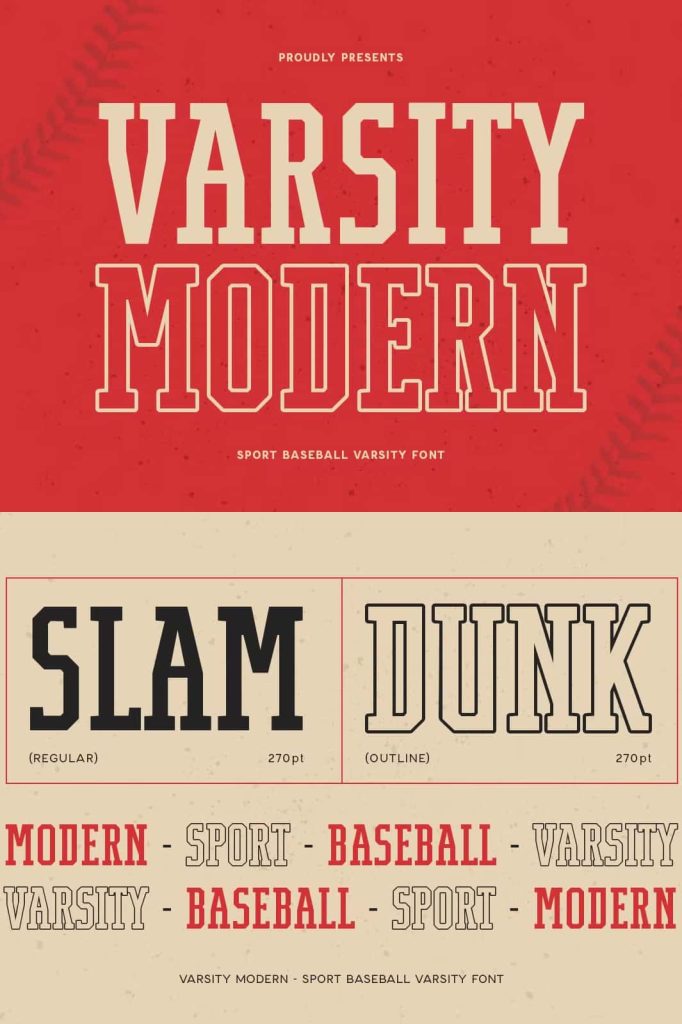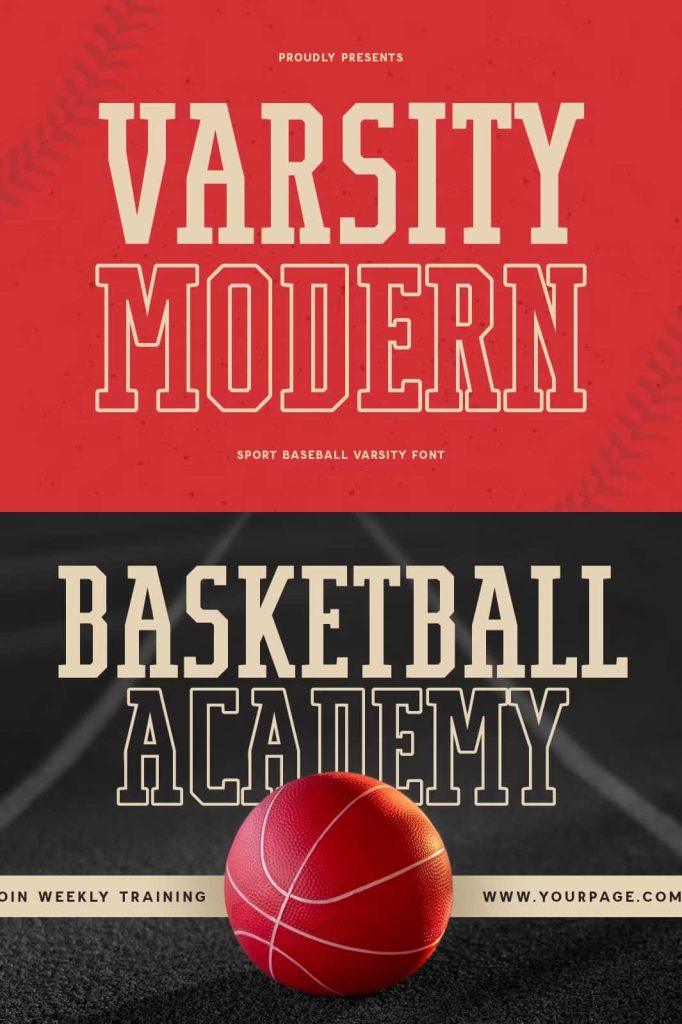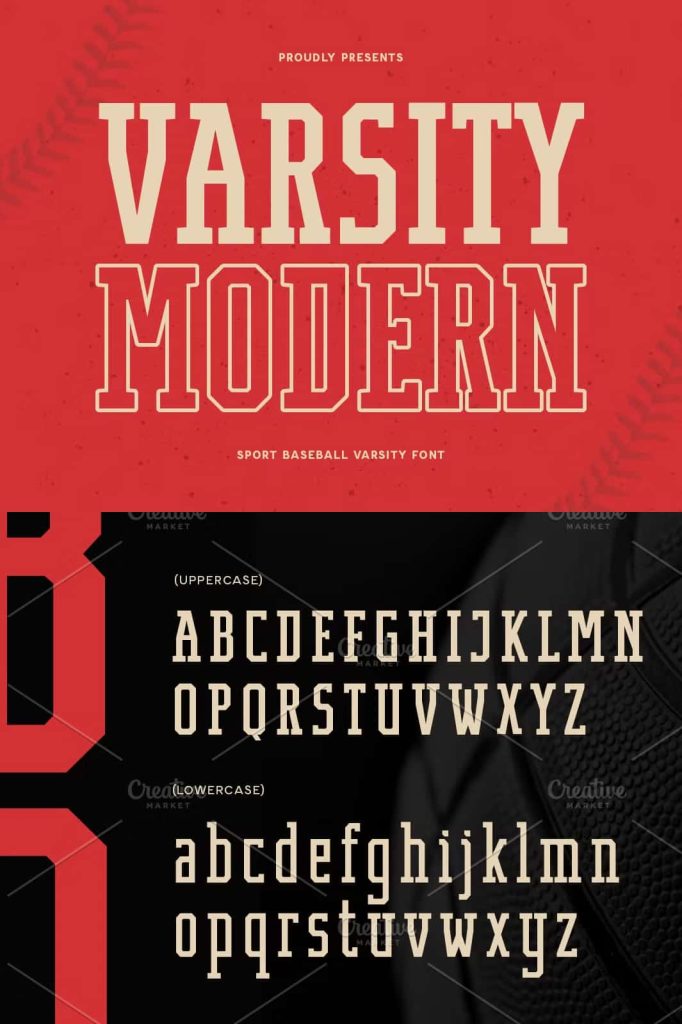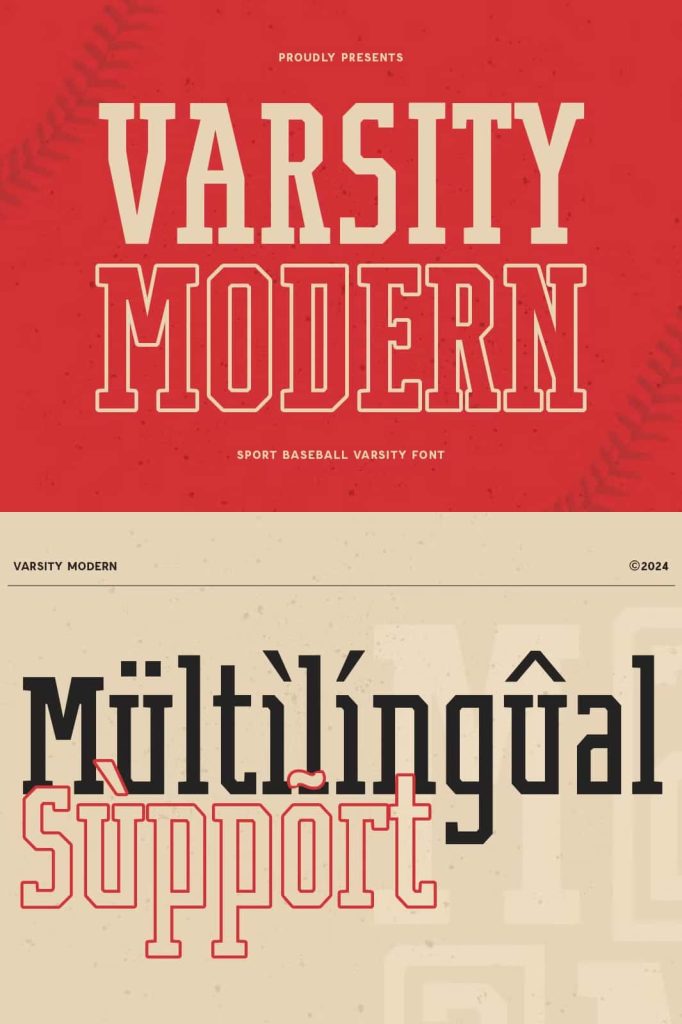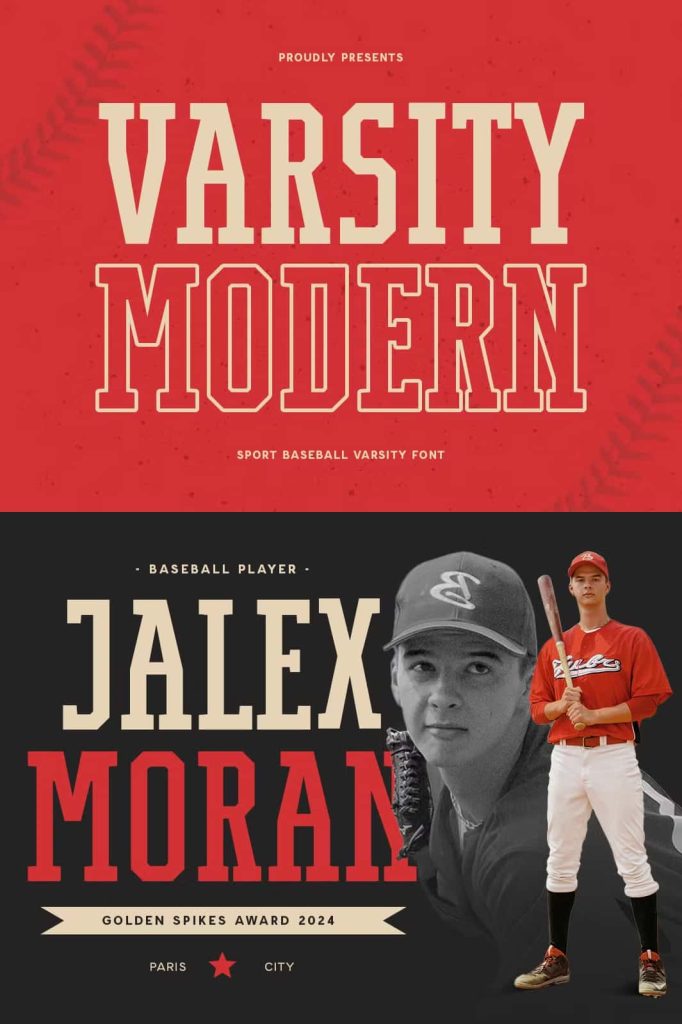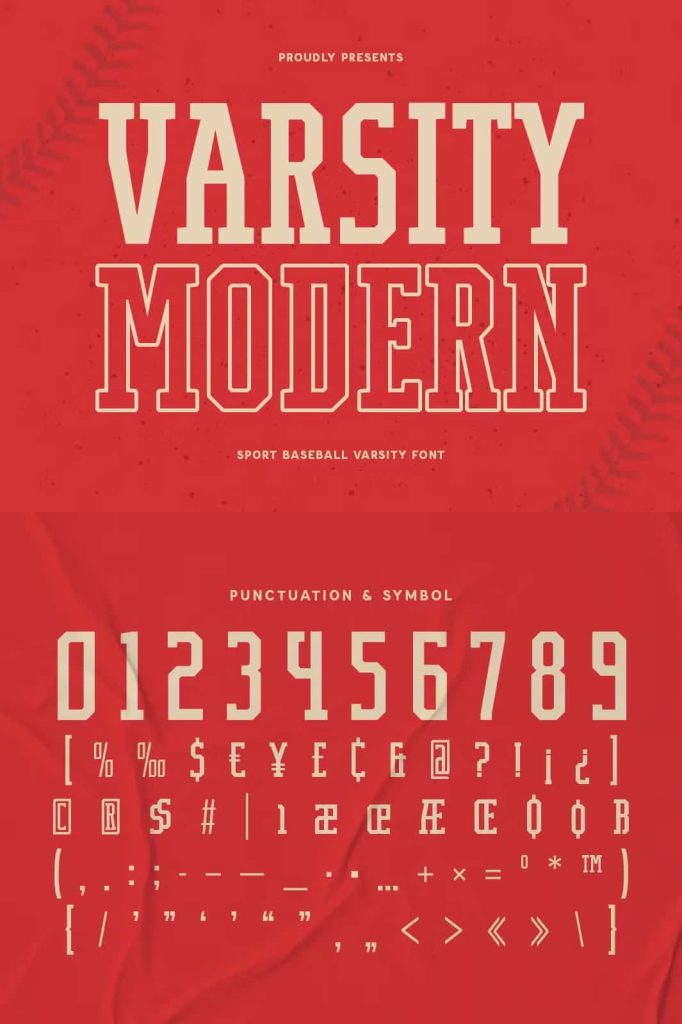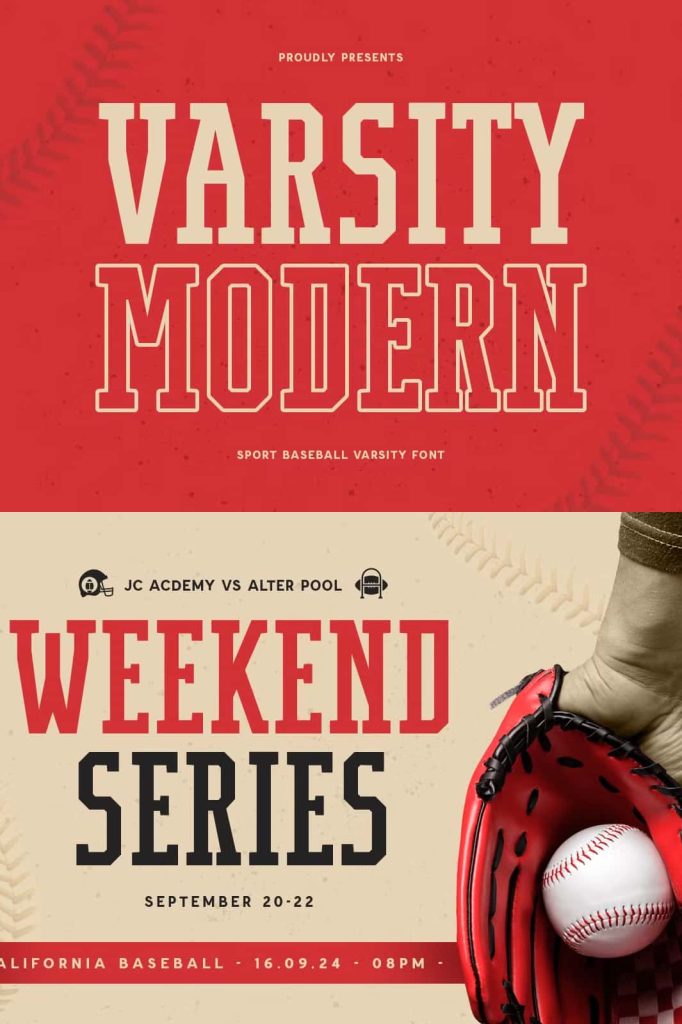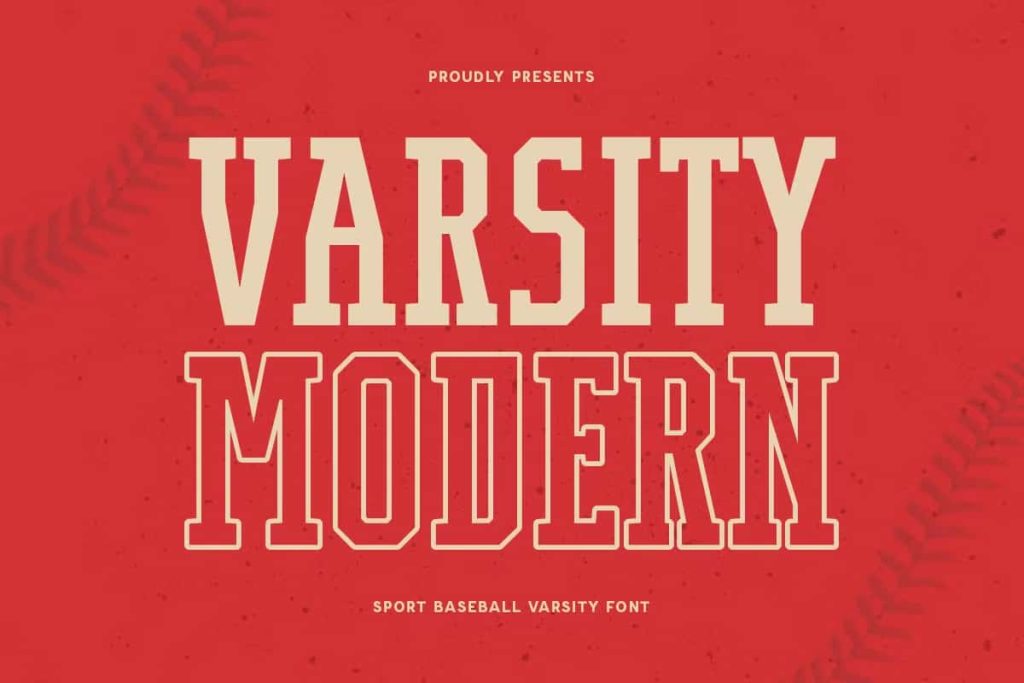
Varsity Modern – Sport Baseball FontleastedAugust 1, 2025Fonts Introducing Varsity Modern, a font that brings the spirit of the game to your designs. Download